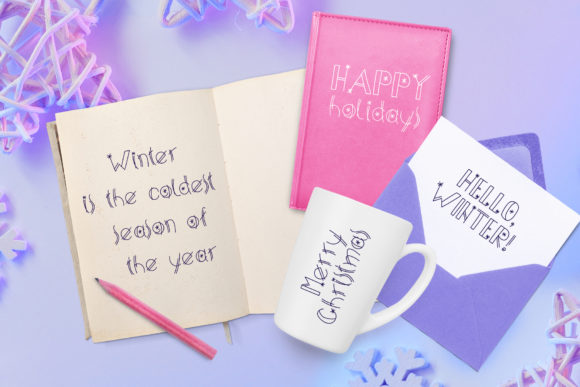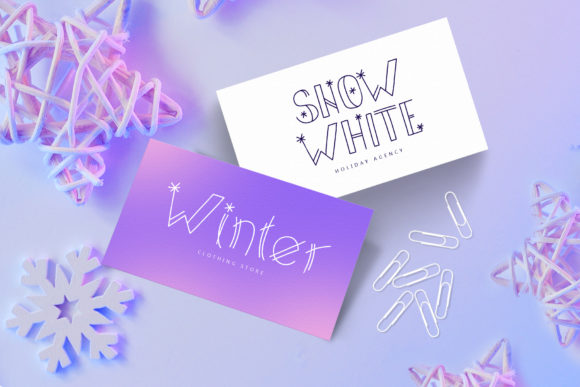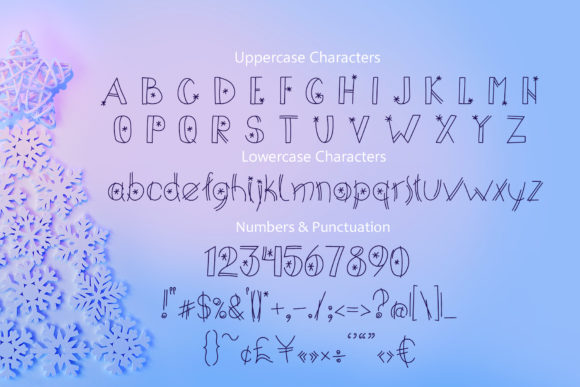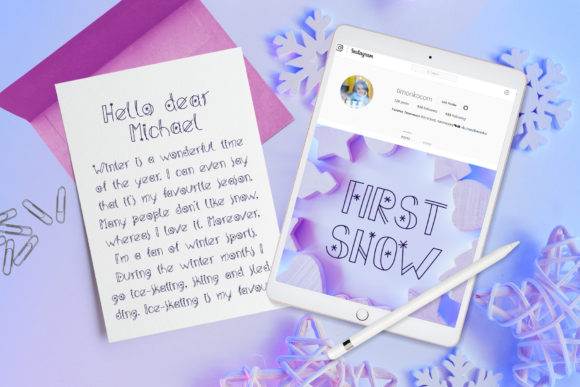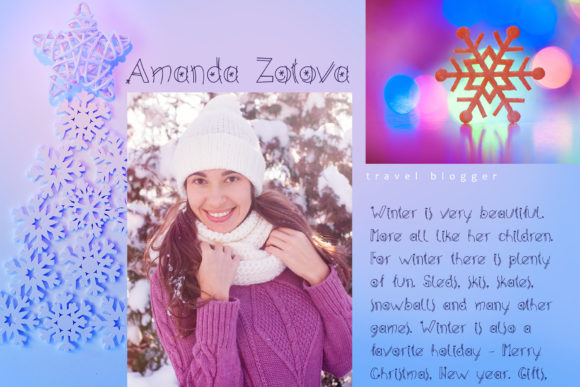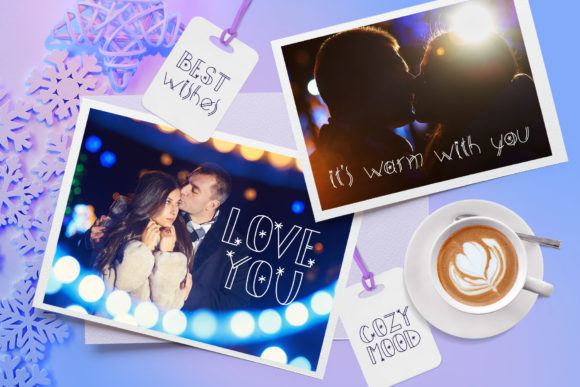
Happy Xmas Font: A Festive and Whimsical Addition to Your Designs
As the holiday season approaches, designers and crafters are on the lookout for the perfect typography to add a touch of festive cheer to their projects. If you’re looking for a font that’s both fun and elegant, look no further than the Happy Xmas Font. This delightful font features beautiful snowflakes that make a great addition to its lovely design, making it the perfect choice for anyone who loves doodles or Scandinavian style.
What Makes Happy Xmas Font So Special?
Happy Xmas Font is a unique and eye-catching typography that combines the elegance of traditional fonts with the playfulness of hand-drawn doodles. The font features intricate snowflakes that add a touch of whimsy and festivity to any design. The snowflakes are carefully crafted to complement the font’s letters, creating a beautiful and cohesive look that’s sure to impress.
Happy Xmas Font is a versatile typography that can be used in a variety of design projects, from holiday cards and invitations to festive posters and social media graphics. Designers and crafters will love the font’s unique and playful design, which adds a touch of personality to any project. Whether you’re creating a DIY craft or a professional design, Happy Xmas Font is the perfect choice for anyone who wants to add a little extra magic to their work.
Scandinavian Style Inspiration
Happy Xmas Font draws inspiration from traditional Scandinavian design, which is known for its simplicity, elegance, and playfulness. The font’s snowflakes and letters are reminiscent of traditional Nordic patterns and motifs, making it a great choice for anyone who loves Scandinavian style. Whether you’re creating a design for a holiday market or a winter wonderland-themed project, Happy Xmas Font is the perfect choice.
• Beautiful snowflakes: Happy Xmas Font features intricate snowflakes that add a touch of festivity and whimsy to any design.
• Lovely font design: The font’s letters are carefully crafted to complement the snowflakes, creating a beautiful and cohesive look.
• Perfect for doodles and Scandinavian style: Happy Xmas Font is a great choice for anyone who loves doodles or Scandinavian style.
• Versatile: The font can be used in a variety of design projects, from holiday cards and invitations to festive posters and social media graphics.
• Holiday cards and invitations
• Festive posters and social media graphics
• Diy crafts and decorations
• Professional designs and marketing materials
Happy Xmas Font is a unique and eye-catching typography that’s perfect for designers and crafters who want to add a touch of festive cheer to their projects. With its beautiful snowflakes and lovely font design, it’s the perfect choice for anyone who loves doodles or Scandinavian style. Whether you’re creating a DIY craft or a professional design, Happy Xmas Font is sure to impress. So why wait? Download Happy Xmas Font today and start creating your own festive and whimsical designs.